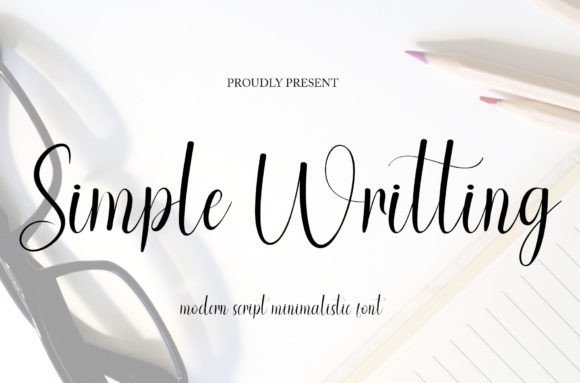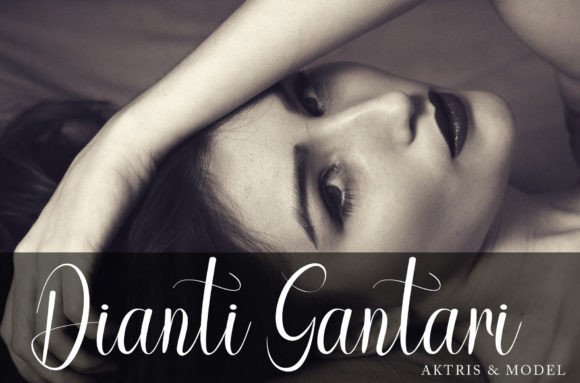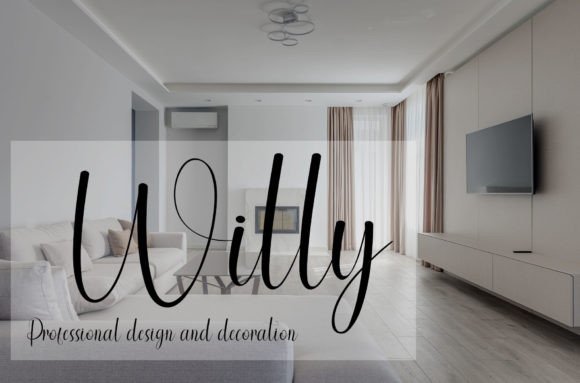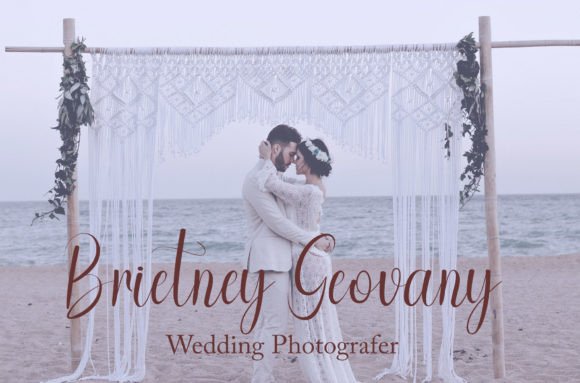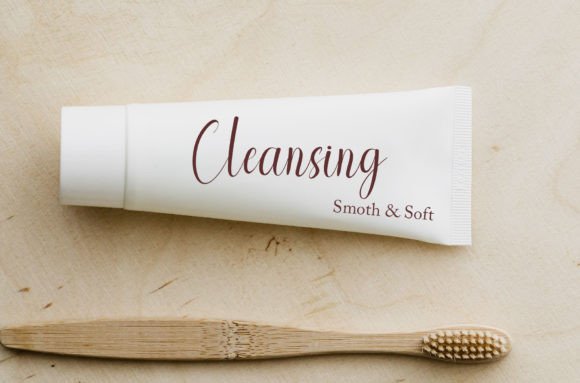
Simple Writting Font
About Simple Writting Font
Simple Writting is a cool and modern handwritten font. Whether you’re using it for crafts, digital design, presentations, or making greeting cards, this font has the potential to become your favorite go-to font, no matter the occasion.